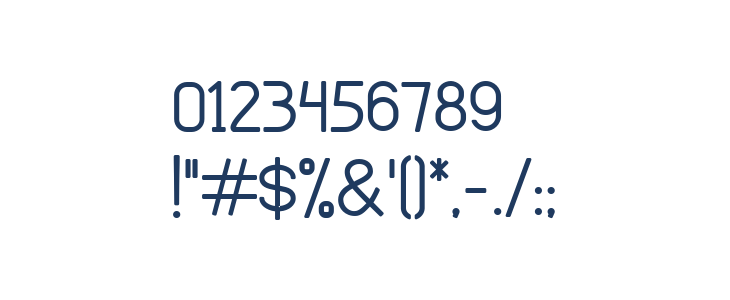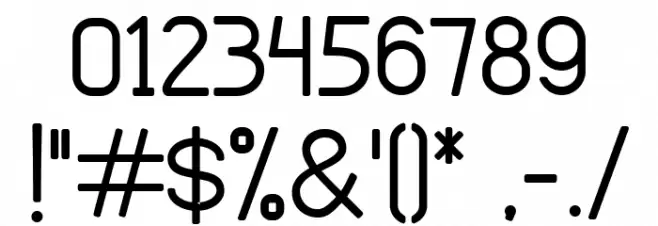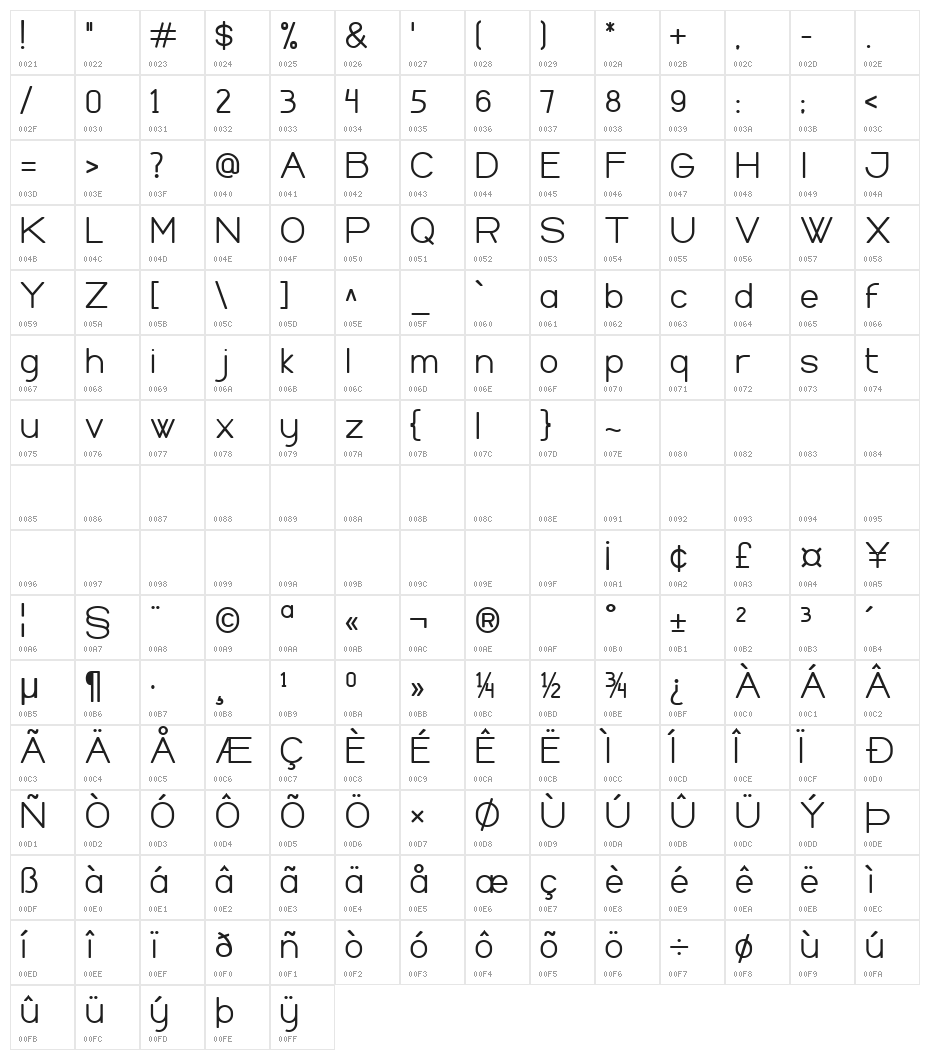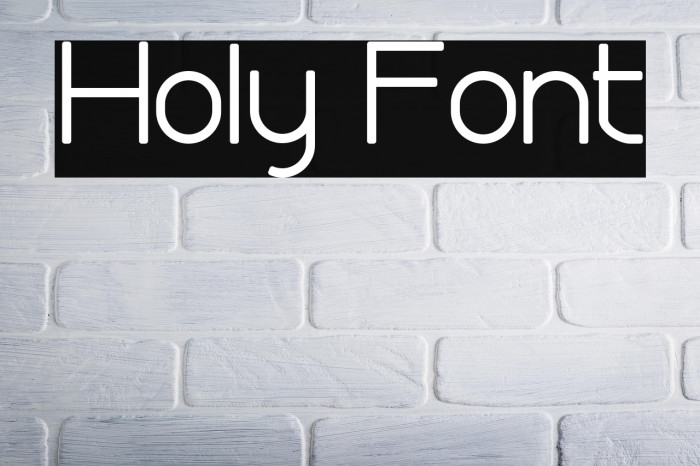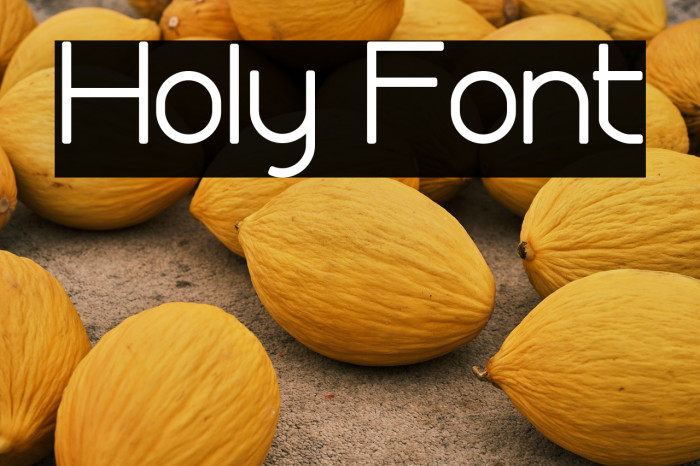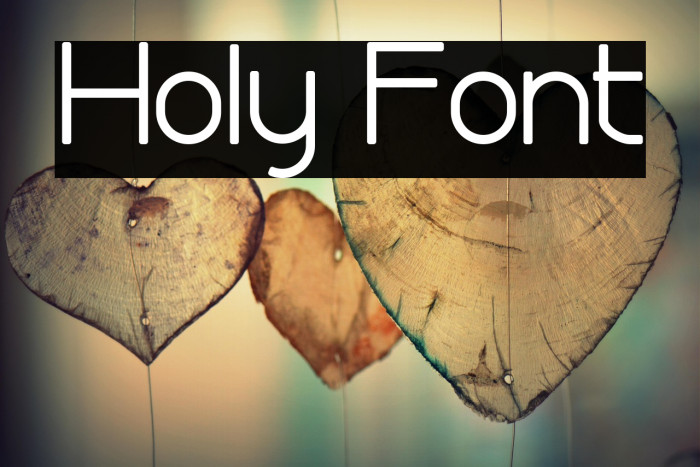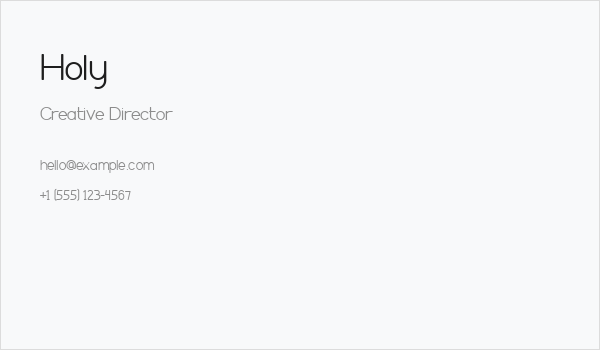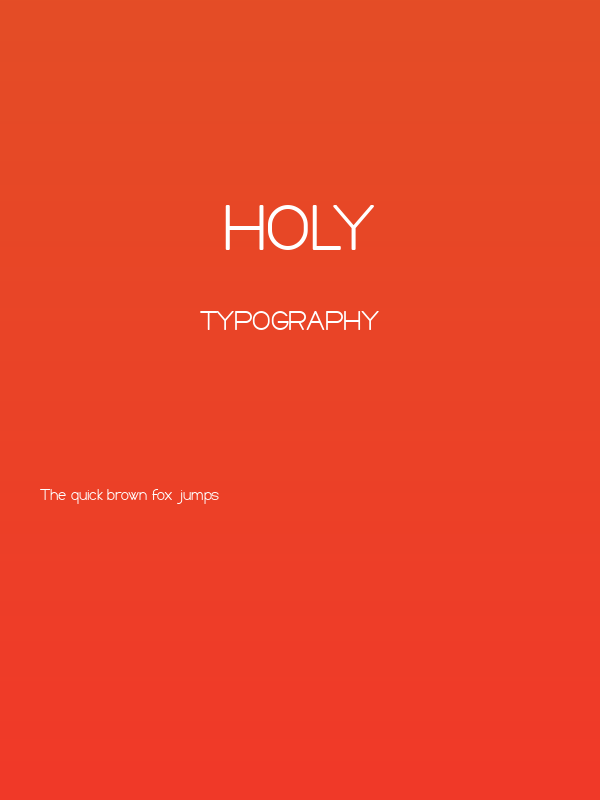
Holy Font
Holy Description
This font features a clean and modern sans-serif design with a geometric structure. The characters are uniform in width, providing a balanced and harmonious appearance. The uppercase letters are bold and assertive, while the lowercase letters maintain a friendly and approachable look. The numerals are clear and easy to read, making them suitable for various applications. Special characters are well-defined, adding versatility to the font's use. The overall style is minimalistic, emphasizing clarity and readability.
| Proposed Projects | Ideal for branding, web design, advertising, and editorial projects where clarity and modernity are essential. |